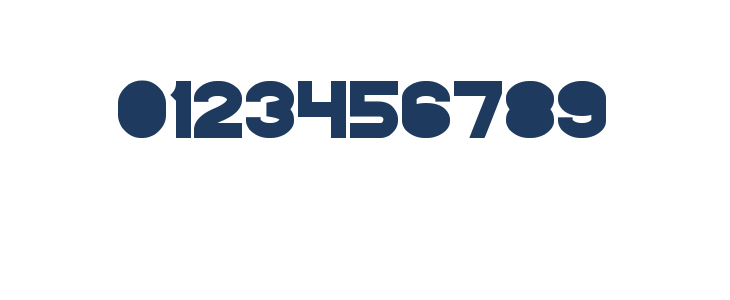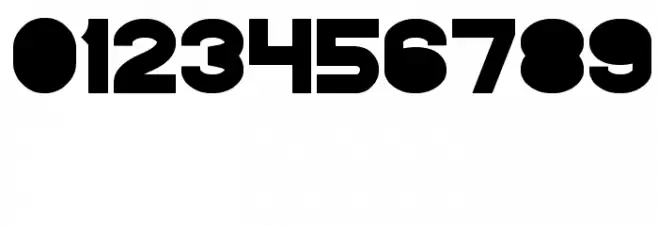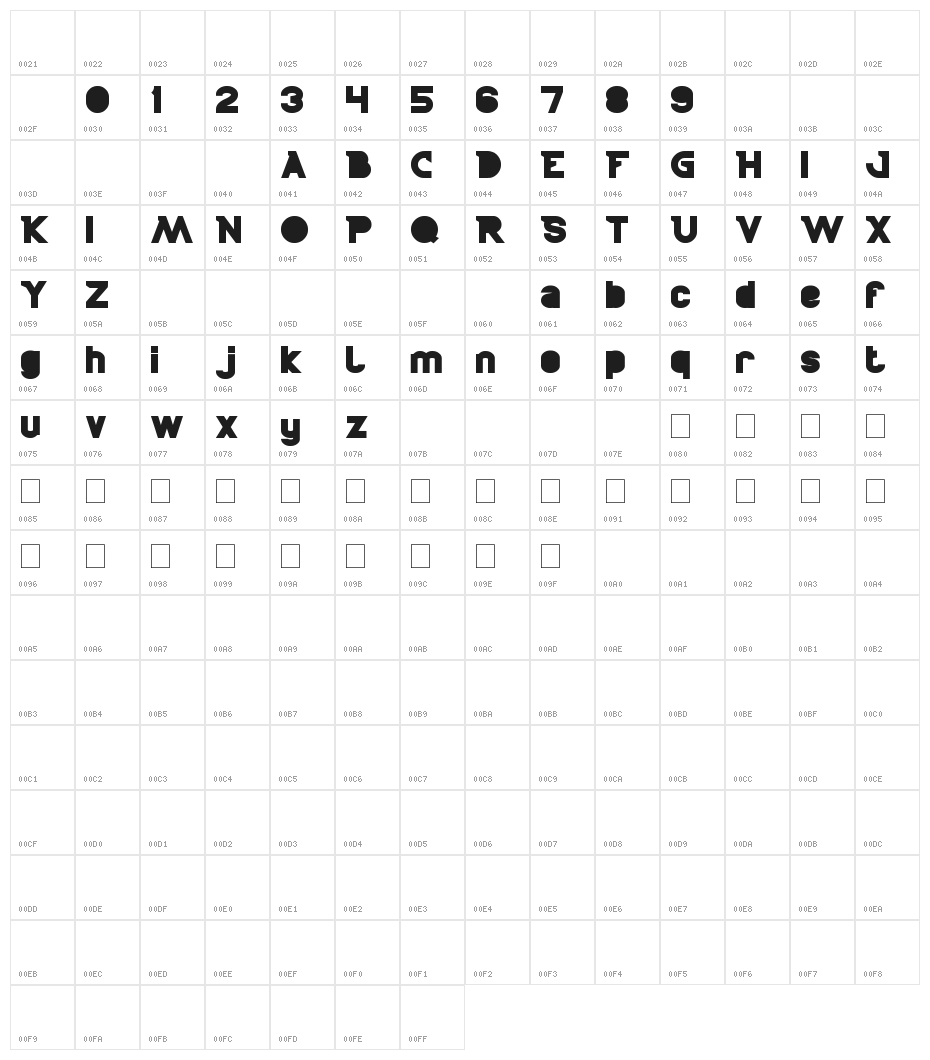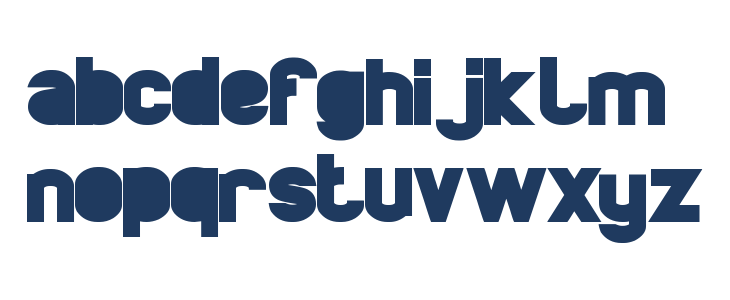
BOARDER Font
BOARDER Description
This bold and striking font features a geometric design with thick, uniform strokes that create a strong visual impact. The uppercase letters are particularly angular, with sharp edges and a modern aesthetic. The lowercase letters maintain a similar weight and style, offering a cohesive look across different cases. Numbers are equally bold, ensuring readability and consistency. The font's unique style is characterized by its heavy weight and distinct shapes, making it ideal for attention-grabbing designs. Its overall appearance is modern and assertive, suitable for projects that require a bold statement.
| Proposed Projects | Ideal for headlines, posters, branding, and any design requiring a strong visual impact. |